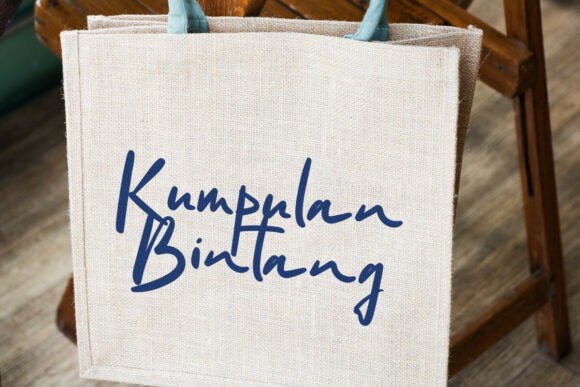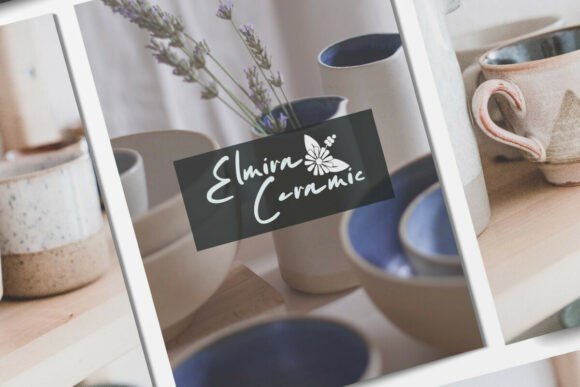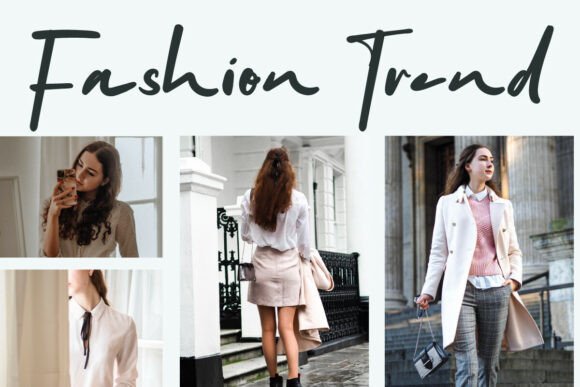
Introduction to Kumpulan Bintang Font
Kumpulan Bintang Font is a bold, casual signature handwriting font of a cool and sophisticated marker typeface with an organic feel and easy signature vibe.
Perfect for banners, brand logo, covers, fabric screen printing, greeting cards, headers, labels, modern websites, packaging, stickers, titles, watermarks, logos, wedding stationery, and others .
Key Features of Kumpulan Bintang Font